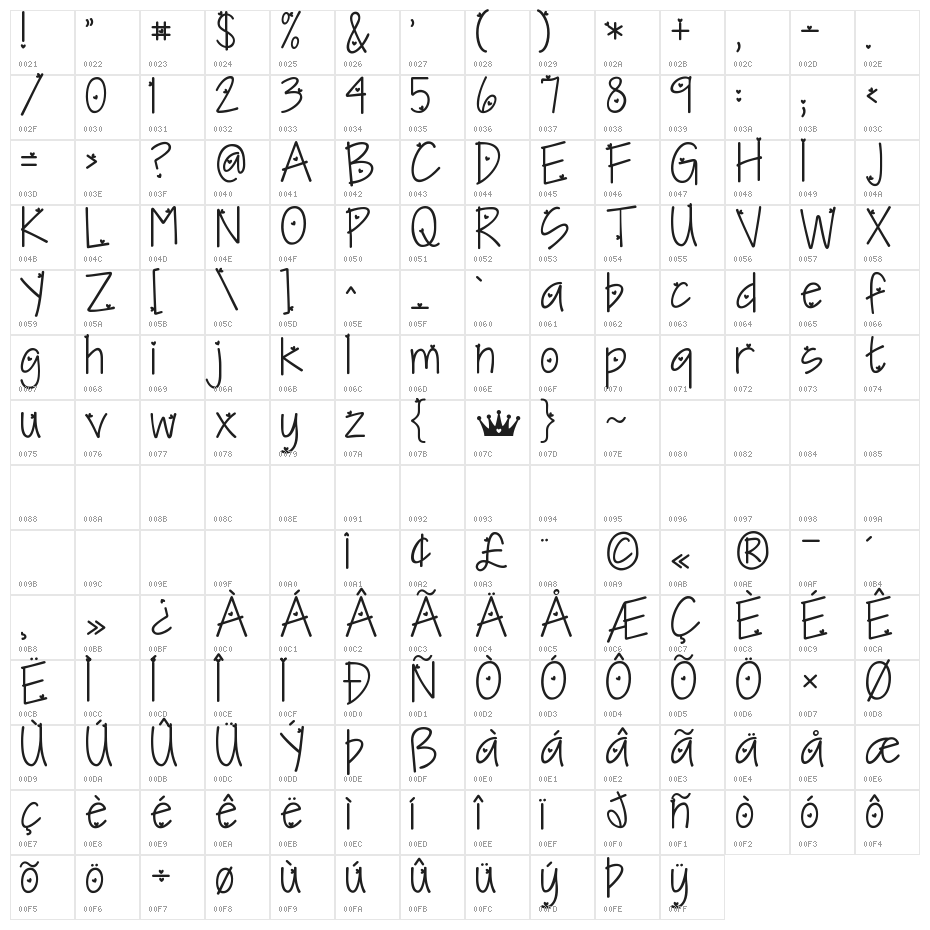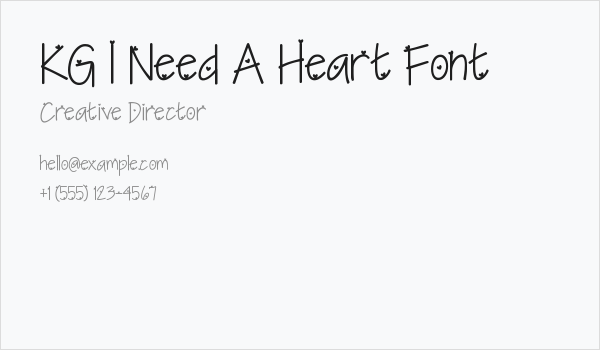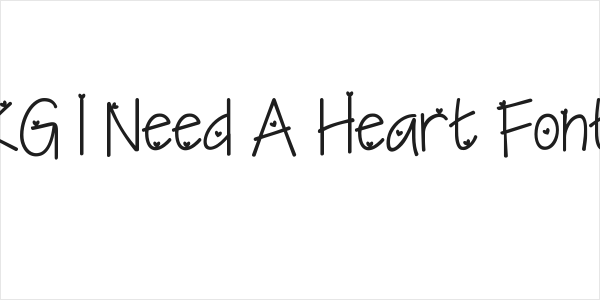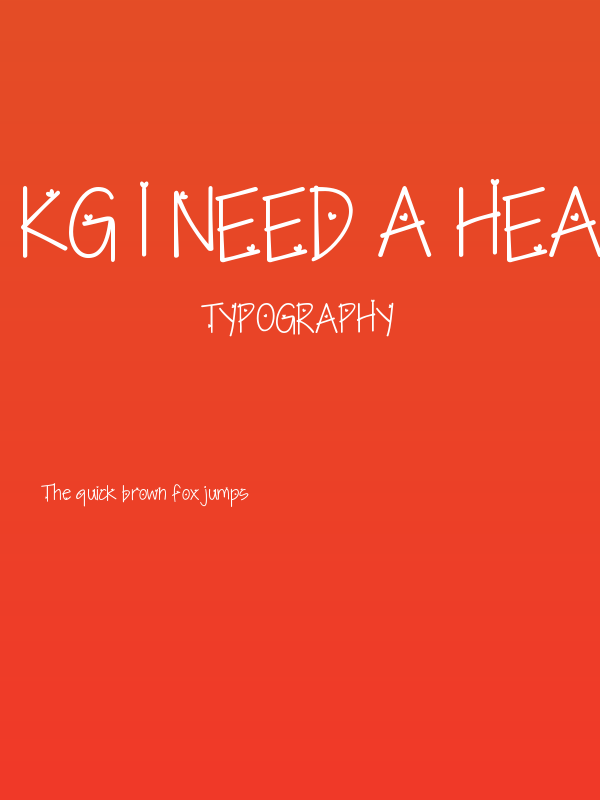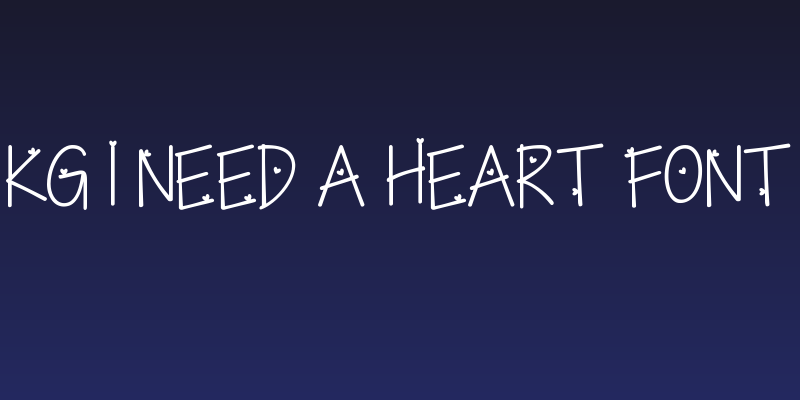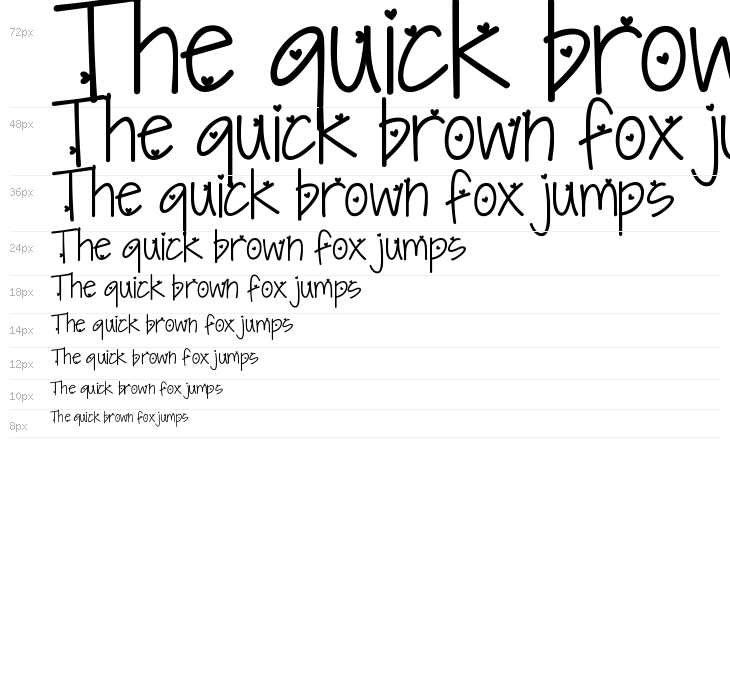
KG I Need A Heart Font Font
KG I Need A Heart Font Description
This playful and whimsical font features a unique design where each character is adorned with small heart shapes, adding a touch of charm and friendliness. The letters are handwritten in style, with a casual and informal appearance. The strokes are consistent in width, providing a uniform look across all characters. The font includes both uppercase and lowercase letters, numbers, and a variety of special characters, making it versatile for different uses. Its distinctive heart embellishments make it particularly suitable for projects that aim to convey warmth, affection, or a sense of fun.
| Use Case | Logos, Headlines, Greeting Cards |
| Proposed Projects | Ideal for greeting cards, children's books, playful branding, and social media graphics. |